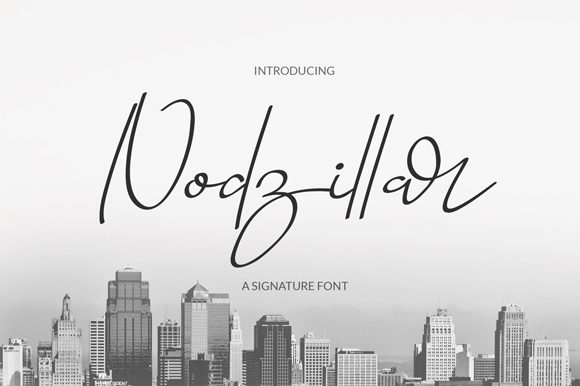
Nodzillar Font
Embrace the allure of Nodzillar, a script font family designed to captivate and inspire. Crafted by Eurus 99, this classic signature font is a testament to timeless elegance and modern sophistication, transforming your creative visions into captivating realities.
Nodzillar's inherent charm lies in its ability to infuse a touch of authenticity and individuality into your designs. Its graceful curves and sweeping strokes evoke a sense of fluidity and movement, mimicking the natural flow of handwritten letters. Each character exudes a distinct personality, adding a personal touch to your projects.
Unleash your imagination and explore the endless possibilities Nodzillar presents. Whether you're designing logos, branding materials, invitations, social media graphics, or website headers, this font family will elevate your creations to new heights. Its versatility knows no bounds, adapting seamlessly to any design aesthetic, from playful and whimsical to elegant and refined.
Imagine your designs adorned with Nodzillar's graceful presence, captivating your audience with its timeless beauty. Experience the satisfaction of creating designs that resonate with your audience, leaving a lasting impression that lingers in their minds. Nodzillar is the key to unlocking your creative potential and crafting designs that speak to the heart.
Don't settle for ordinary fonts that blend into the background. Choose Nodzillar, the font that commands attention, ignites imaginations, and leaves an indelible mark on your audience. Embrace the power of Nodzillar today and embark on a creative journey that will redefine your design horizons.